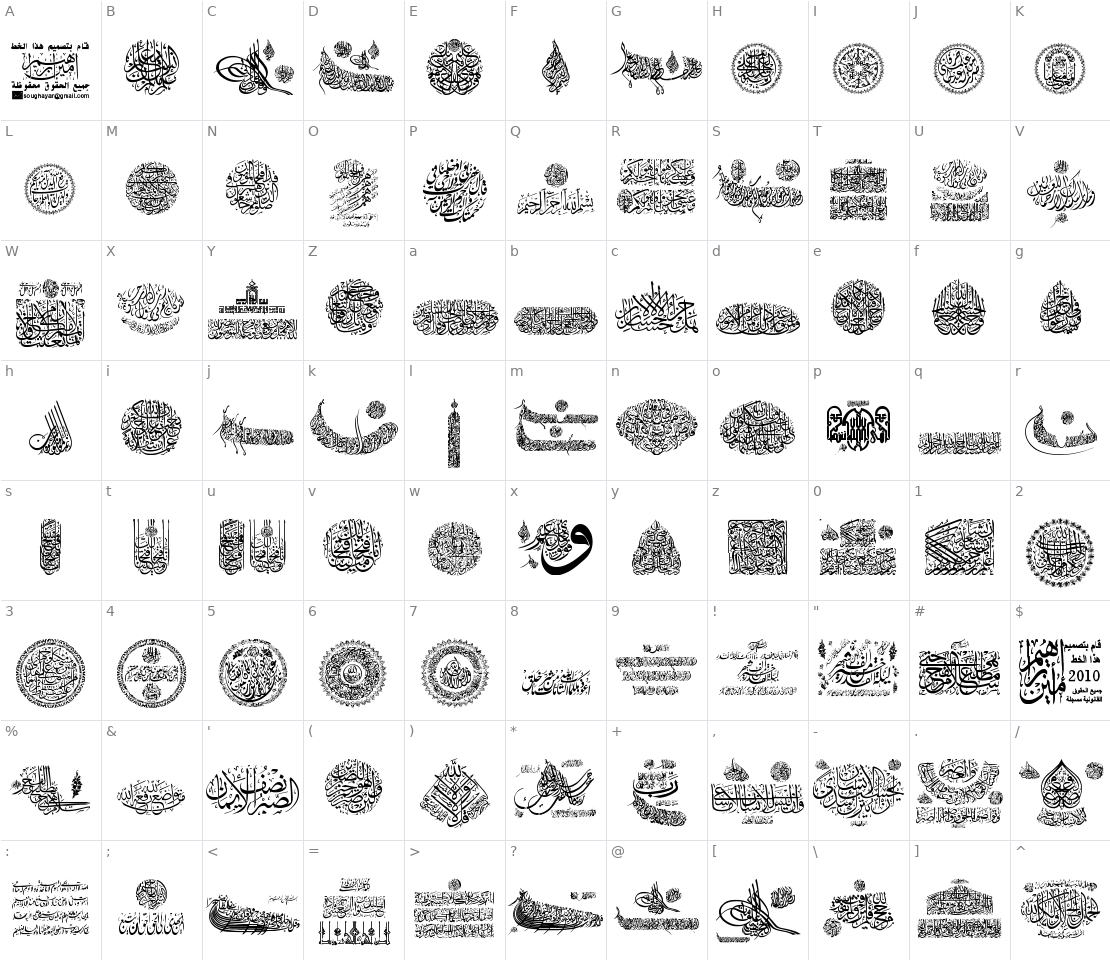
My Font Quraan 7
by Sughayer Foundry
My Font Quraan 7 is an ornamental font from Sughayer Foundry containing decorative symbols and calligraphic elements rooted in Islamic and Quranic design traditions. Rather than a text face, it functions as a collection of ornamental glyphs, verse markers, and religious symbols used to embellish Quran layouts, Islamic publications, and Arabic calligraphic compositions. Strictly functional within its niche, but essential for anyone doing serious work in that space.